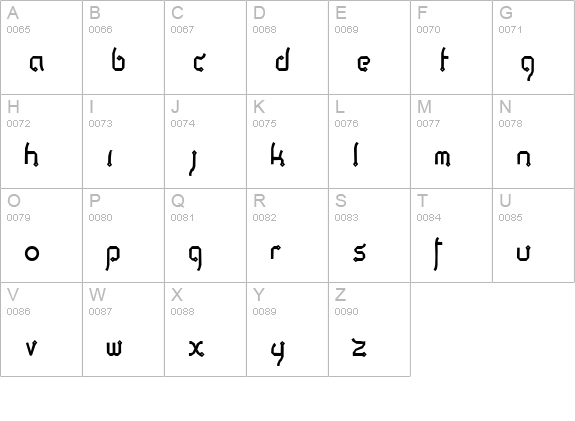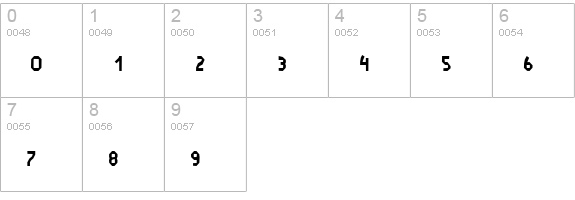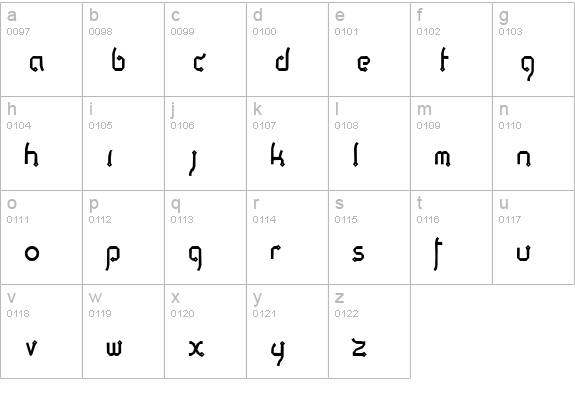
Thaipe Normal is the standard, neutral variant in the Thaipe typeface family \xE2\x80\x94 well suited to general body text, paragraphs, and standard typographic work.
Thaipe Normal is a versatile and modern font that brings a touch of elegance to any design project. With its clean lines and balanced proportions, Thaipe Normal is perfect for both headlines and body text. The font features a unique combination of rounded and sharp edges, creating a harmonious and eye-catching look. Thaipe Normal is free to download, making it accessible to everyone. Whether you're a professional designer or a casual user, you can easily enhance your projects with this stylish font. Its versatility allows it to be used in a wide range of design applications, such as logo design, branding, packaging, web design, and more. One of the great advantages of Thaipe Normal is its readability. The clear and legible letterforms ensure that your message is easily understood by your audience. Additionally, the font's extensive character set supports multiple languages, making it suitable for global communication. To download Thaipe Normal for free, simply visit FontsMarket.com. This reliable and user-friendly website offers a wide collection of high-quality fonts, including Thaipe Normal. With just a few clicks, you can have this beautiful font at your fingertips, ready to elevate your designs to the next level. Don't miss the opportunity to enhance your creative projects with Thaipe Normal. Download it for free today at FontsMarket.com and experience the power of this elegant and versatile font.